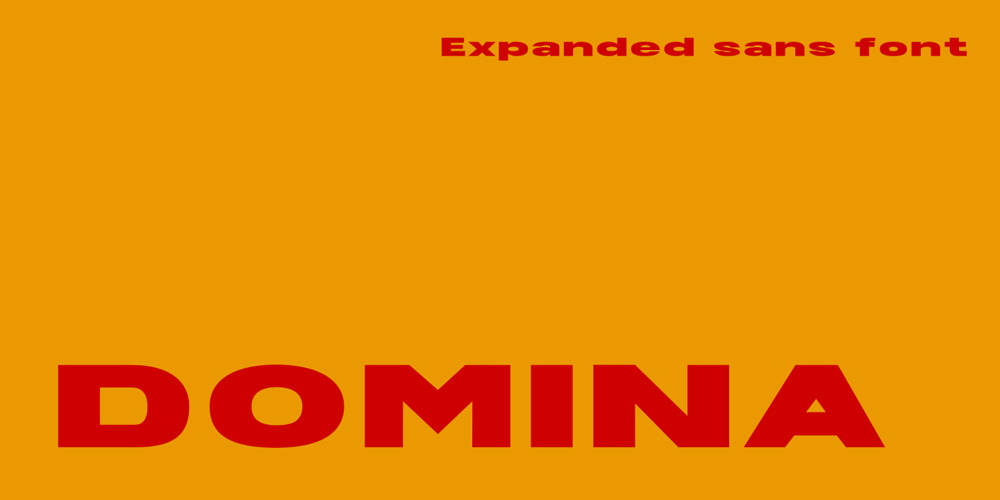
Domina
Domina font
Domina Font Family was designed by Arief Rochman and published by 4RM Font. Domina contains 2 styles and family package options. Inspired by the of brutalism design, this font is made with an expanded width, with the authenticity of each letter, making this font look strong and brutal, suitable for use in the application of titles, posters, billboards and more.